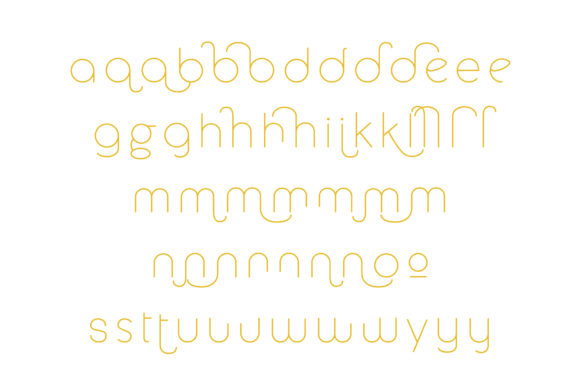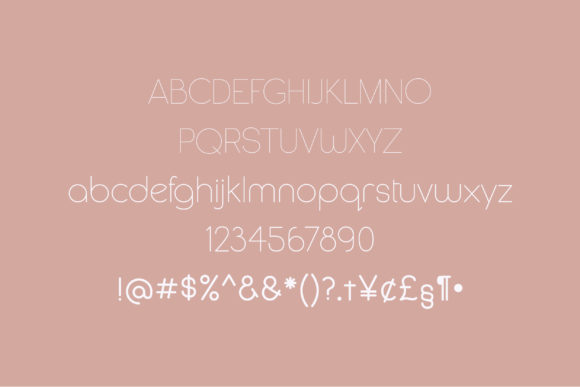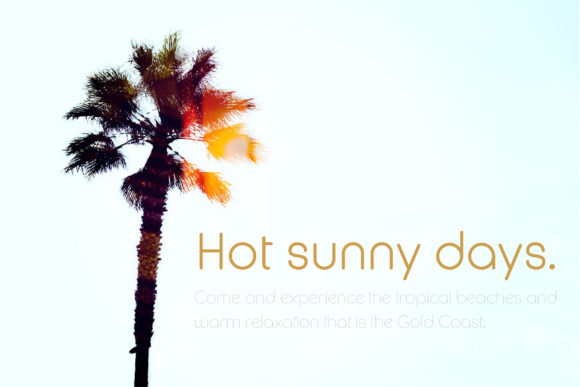
Introduction to Hyde Street Font
Hyde Street is a light and flexible sans serif font.
It works great on a variety of contexts, both formal and informal .
Key Features of Hyde Street Font
Why Choose Hyde Street Font?